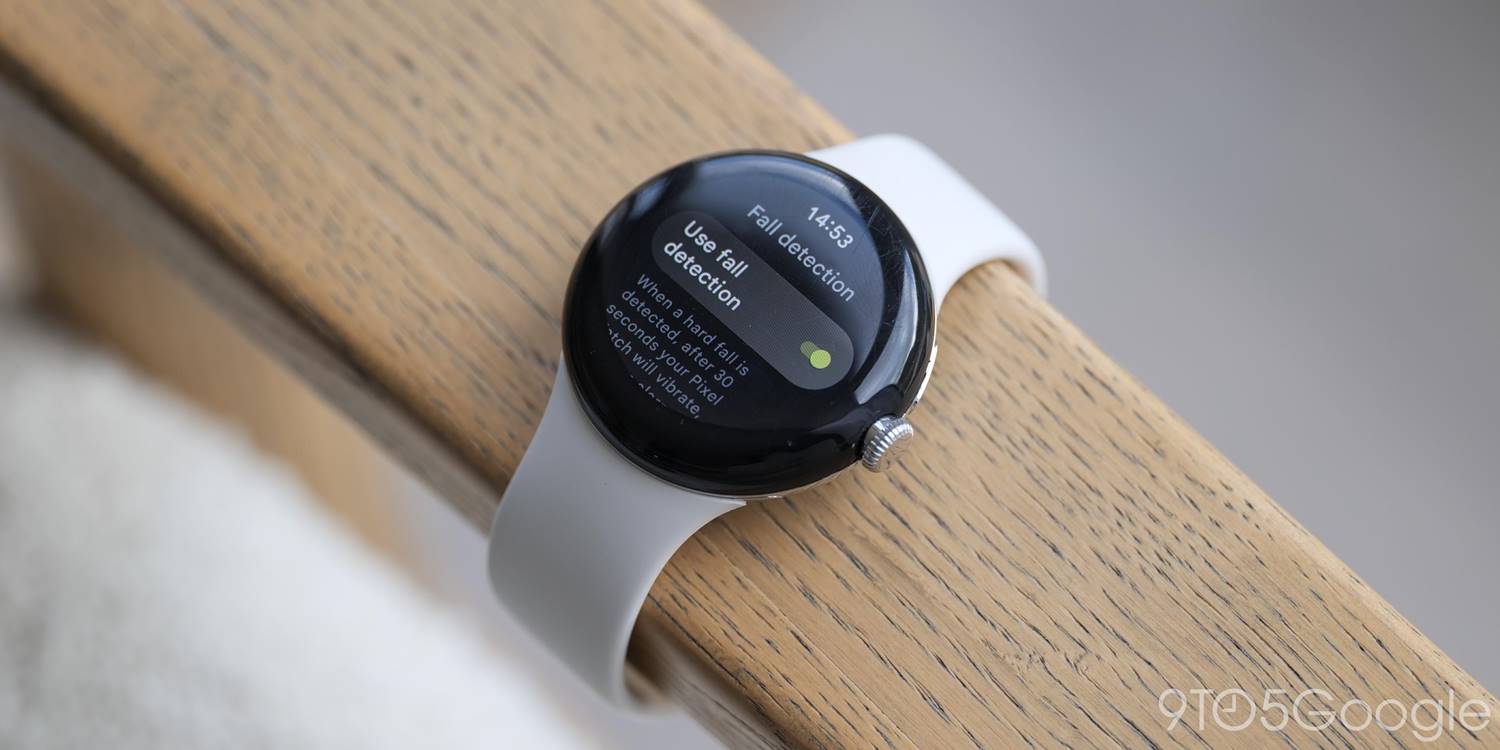
With the November Wear OS 5 update, Google did not fix the original Pixel Watch reverting to the old Roboto font.
Outside of soft-bricking for some — but not all — owners, the first-generation Pixel Watch strangely switched from the Google Sans font to Roboto. After installing this month’s release, the old font is still showing on a device that successfully updated back in September.
Android’s old font from the early 2010s just looks a little bit off and less sleek in the modern era, especially when you go from the wearable to your phone. There’s no reason for Google to make a font change on just one device, and this being a bug makes the most sense.
Roboto vs. Google Sans
This change is applied to every single screen from the screen lock number pad to the Settings list and inside apps. Some telltale differences are the letter ‘G’ and numbers. Of course, there’s no impact to functionality, but it might take a few days to adjust.
With the “next update planned for March 2025,” this does not necessarily bode well for a quick resolution. That said, there could always be an unscheduled fix.